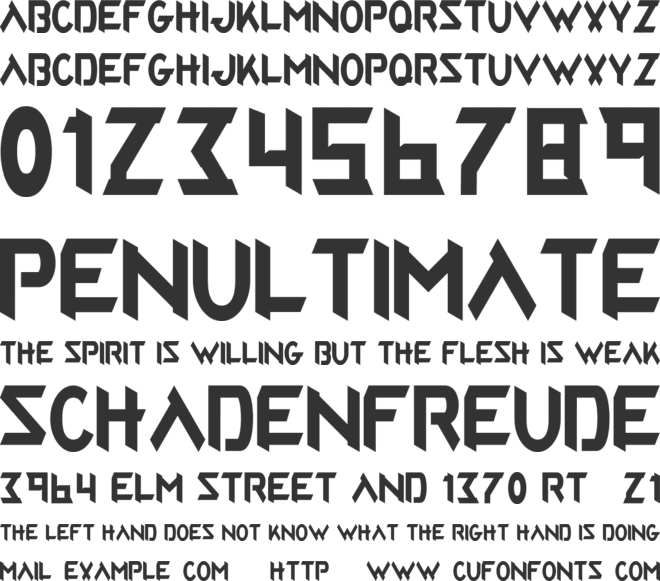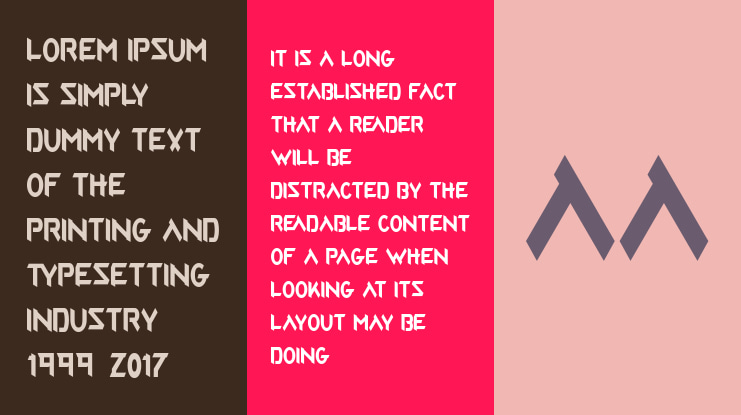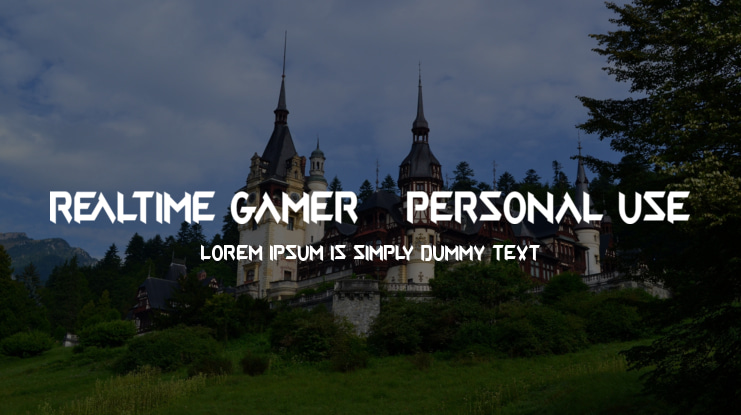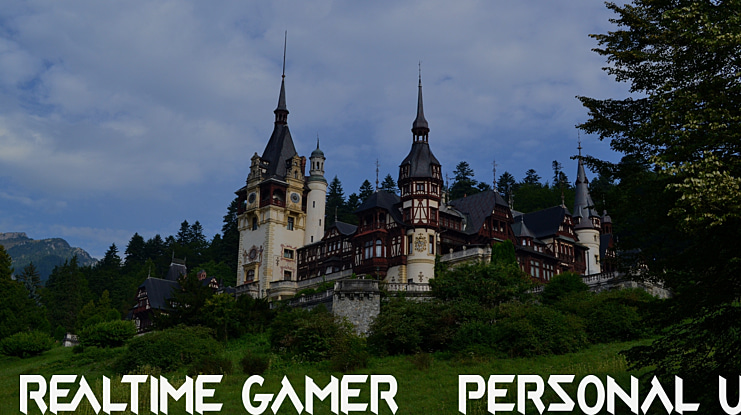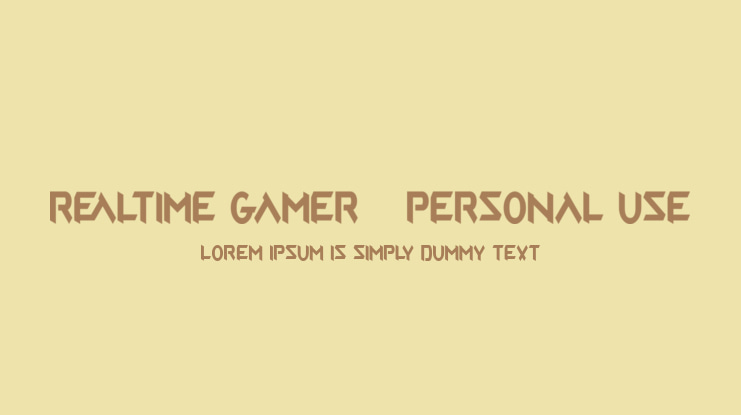
Realtime Gamer - Personal Use Font
Aditiyo Dwi Putranto
Realtime is a cool, thick lettered and robotic display font. This font is ideal for writing web designs, business cards, or pretty much anything else that requires a techno and bold touch.